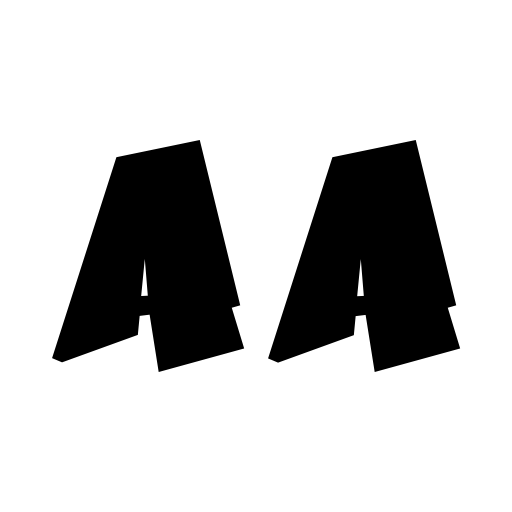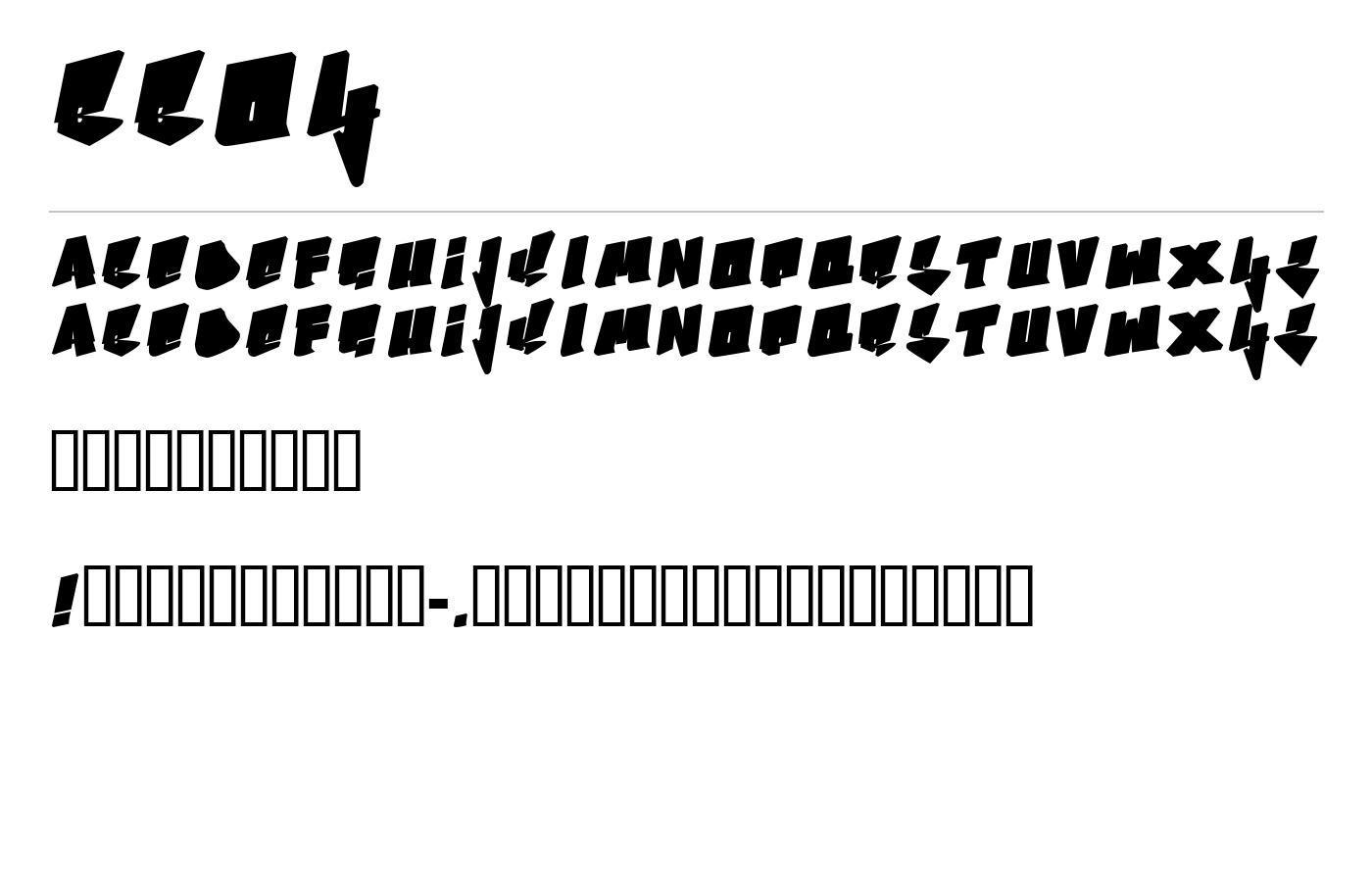
Bboy Font is a bold, condensed display typeface with a strong urban and edgy vibe, featuring sharp, dynamic letterforms that tilt forward with unique geometric shapes. Its high contrast and stylized characters make it ideal for striking headlines, logos, and creative projects that seek to evoke a sense of energy and street culture. This font works best in designs that demand attention and convey a youthful, rebellious attitude.
Bboy Font
About Bboy Font